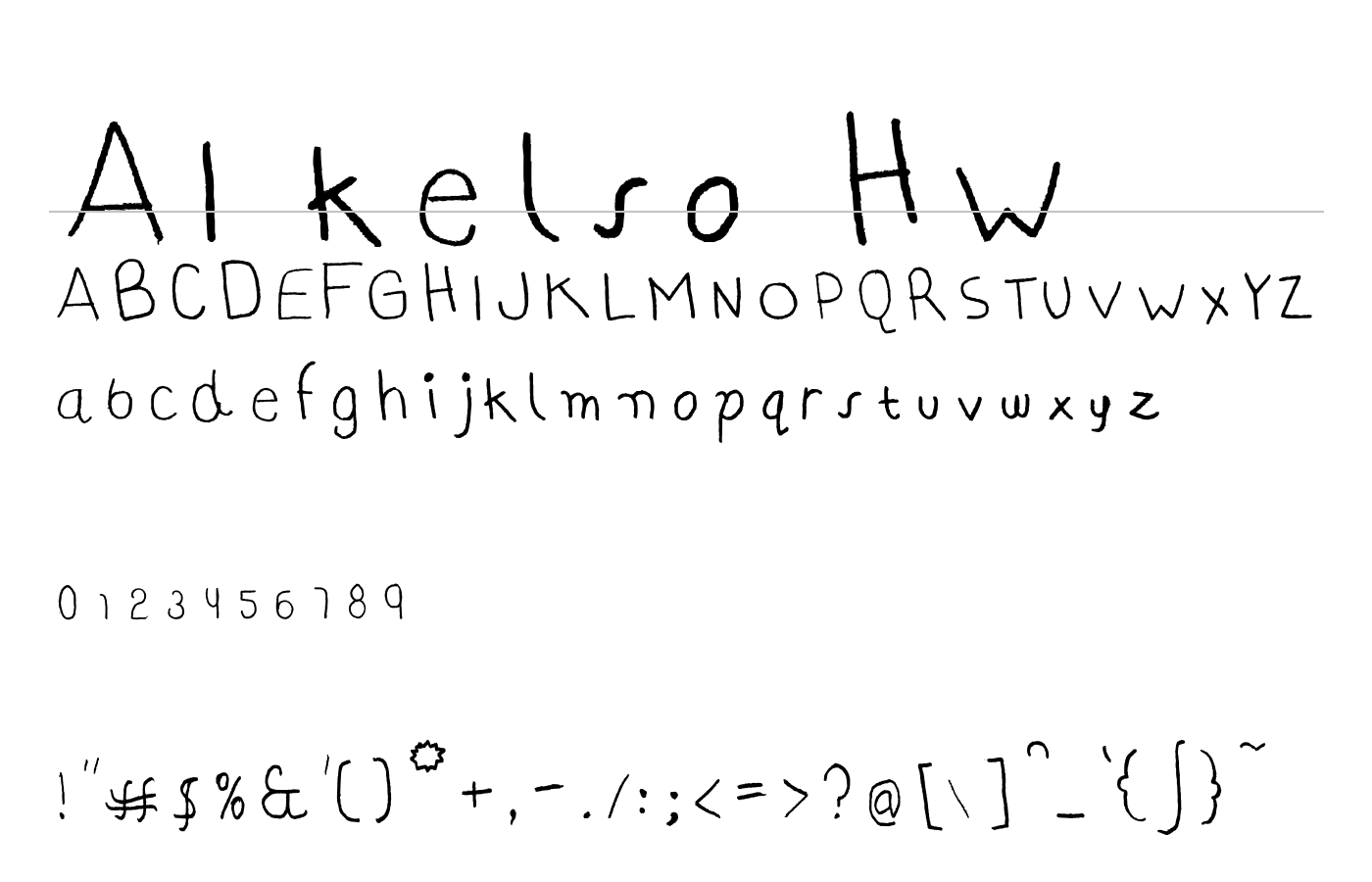
AI kelso HW is a charming handwritten sans serif font with a casual and playful feel. Its irregular, slightly quirky letterforms and thin, uneven strokes give it a friendly, approachable personality, making it perfect for creative projects, informal branding, and fun editorial use where a personal touch is desired. This font works best in headlines, logos, and packaging that seek a warm, human vibe rather than formal or traditional styles.
AI kelso HW Font
About AI kelso HW Font